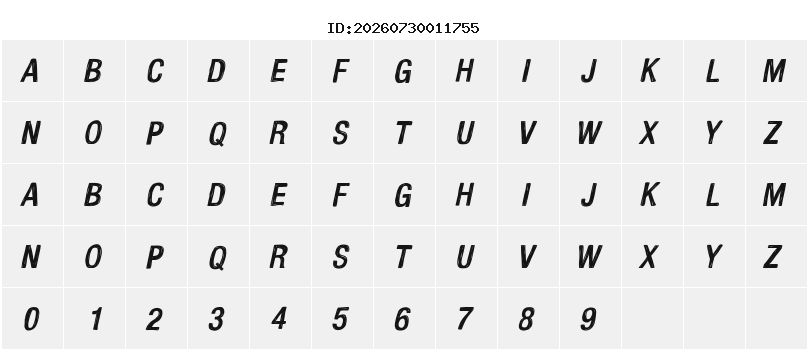
Kelpotico Preview
• Font Name: Kelpotico
• Font ID: AzmiKamarullah: Kelpotico Italic: 2016
• Full Font Name: Kelpotico Italic
• PostScript Name: Kelpotico-Italic
• Designer: Azmi Kamarullah
• Manufacturer: Azmi Kamarullah
About Kelpotico.ttf
Kelpotico.ttf is a modern, elegant sans-serif font designed for ultimate readability and visual harmony. Perfect for branding, headlines, web design, and print materials.